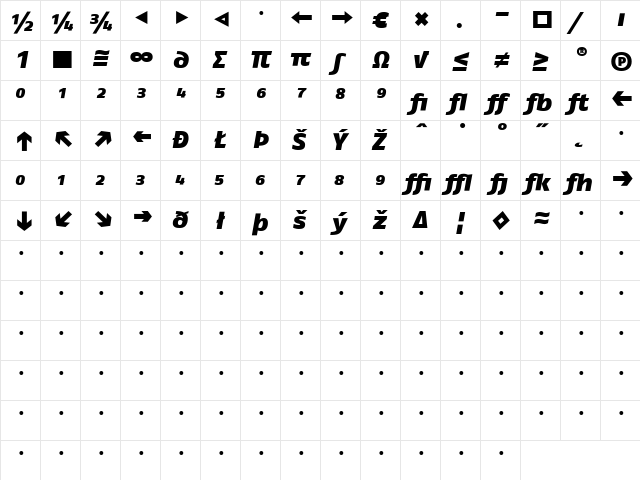
FagoEx ItalicHeavy
Design Context for FagoEx Typeface
FagoEx offers clean, dependable letterforms without strong stylistic allegiance, making it a practical choice for designers who need flexibility. Its italic angle brings a sense of urgency and motion to the letterforms.
Pro Tip: Use FagoEx for emphasis, pull quotes, and subheadings where its slanted energy can add rhythm to the layout.